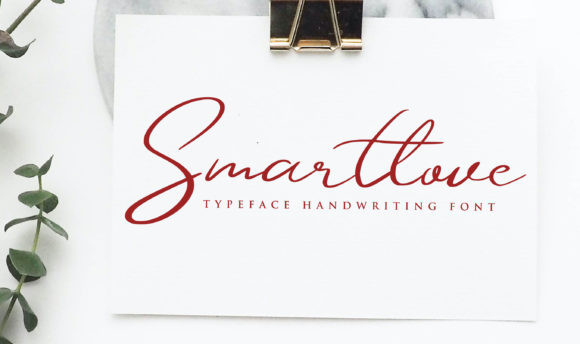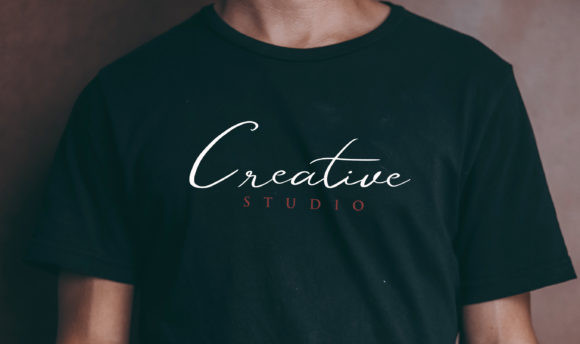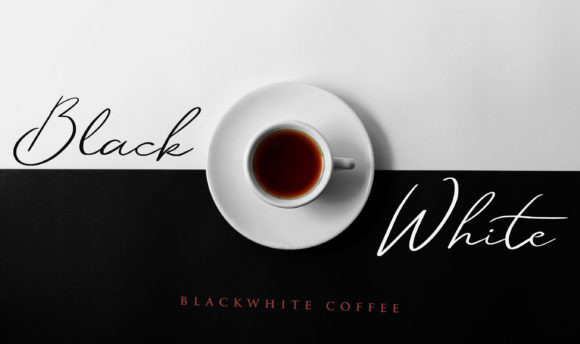
Smartlove Font
Smartlove is a beautiful and stylish handwritten font. Cursive and neat, this font will make each of your designs look gorgeous. This font is PUA encoded which means you can access all of the glyphs and swashes with ease!